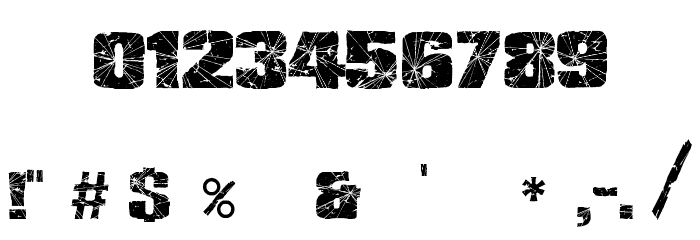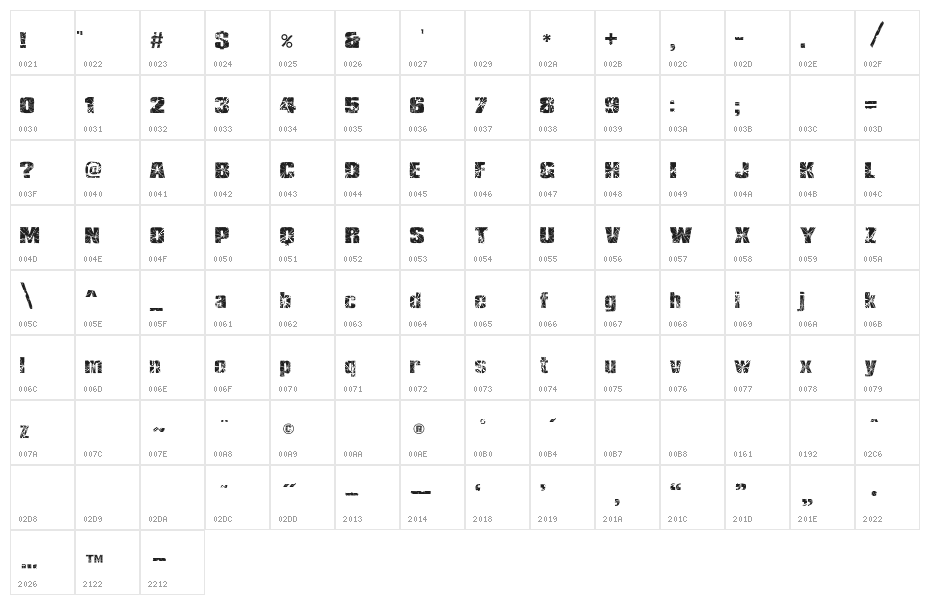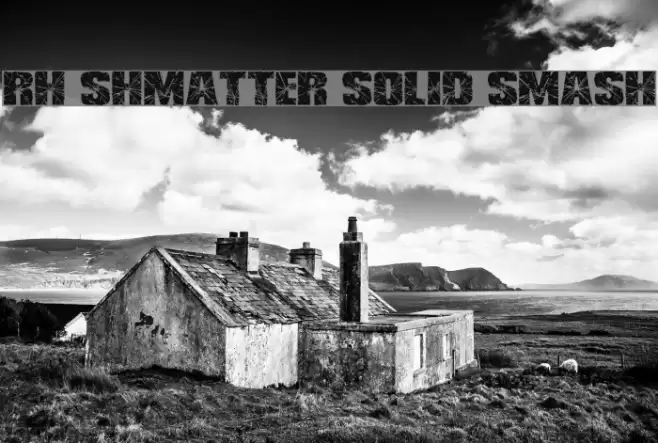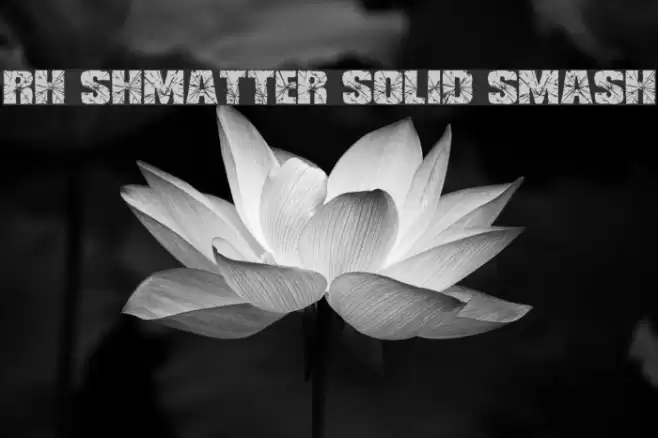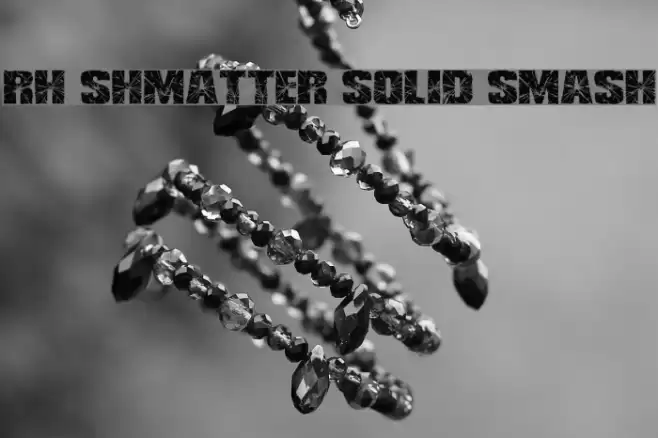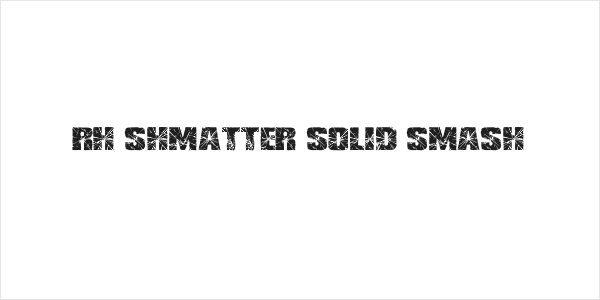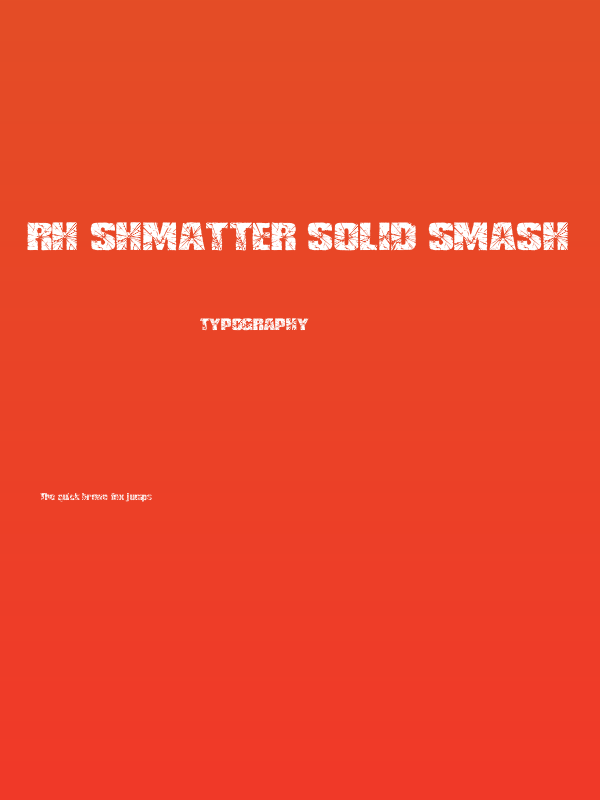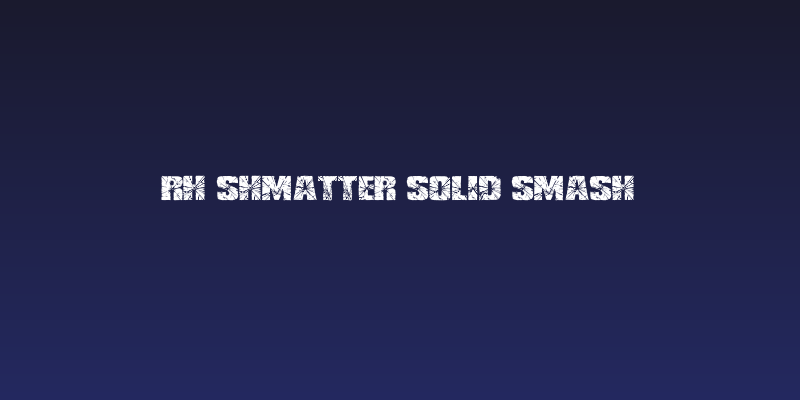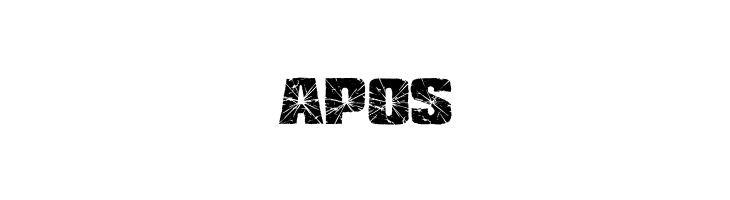
RH SHMATTER SOLID SMASH Font
RH SHMATTER SOLID SMASH Description
This font features a bold and impactful design with a shattered, fragmented appearance. Each character is filled with a pattern that resembles broken glass or cracked surfaces, giving it a dynamic and edgy look. The uppercase and lowercase letters maintain a consistent style, with sharp edges and irregular shapes that create a sense of movement and chaos. The numbers and special characters follow the same design principles, ensuring a cohesive and striking visual impact across all elements. This font is perfect for projects that require a strong, attention-grabbing aesthetic.
| Overall Style | Modern, Edgy |
| Proposed Projects | Ideal for posters, album covers, video game titles, and any design needing a bold, edgy look. |